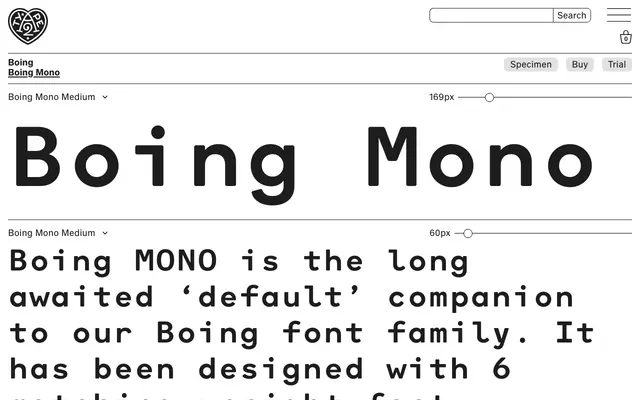
Boing Mono specimen from A2-Type
A fixed-width companion to A2-Type's Boing family, offered in six upright weights with a rounded, geometric character.
Designed as the default monospaced counterpart to the Boing family, it retains the geometric warmth of the parent while applying fixed-width spacing throughout. Six weights run from Thin to Bold, all upright with no italic cuts. Suited to coding interfaces, tabular work or any setting where the Boing aesthetic needs monospaced discipline.
A monospaced companion to the Boing family, sharing its geometric, rounded character while enforcing fixed-width spacing across all six weights.